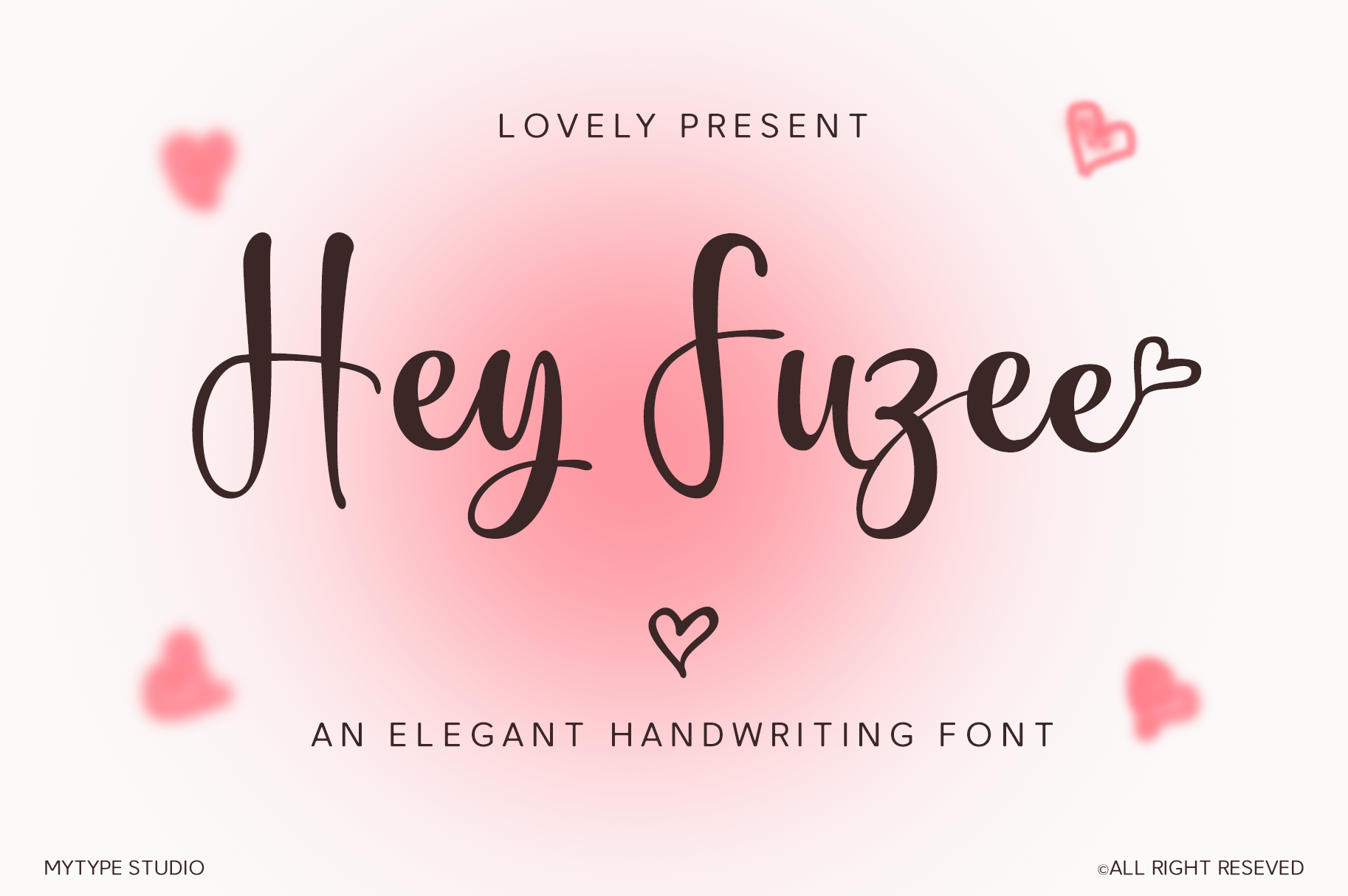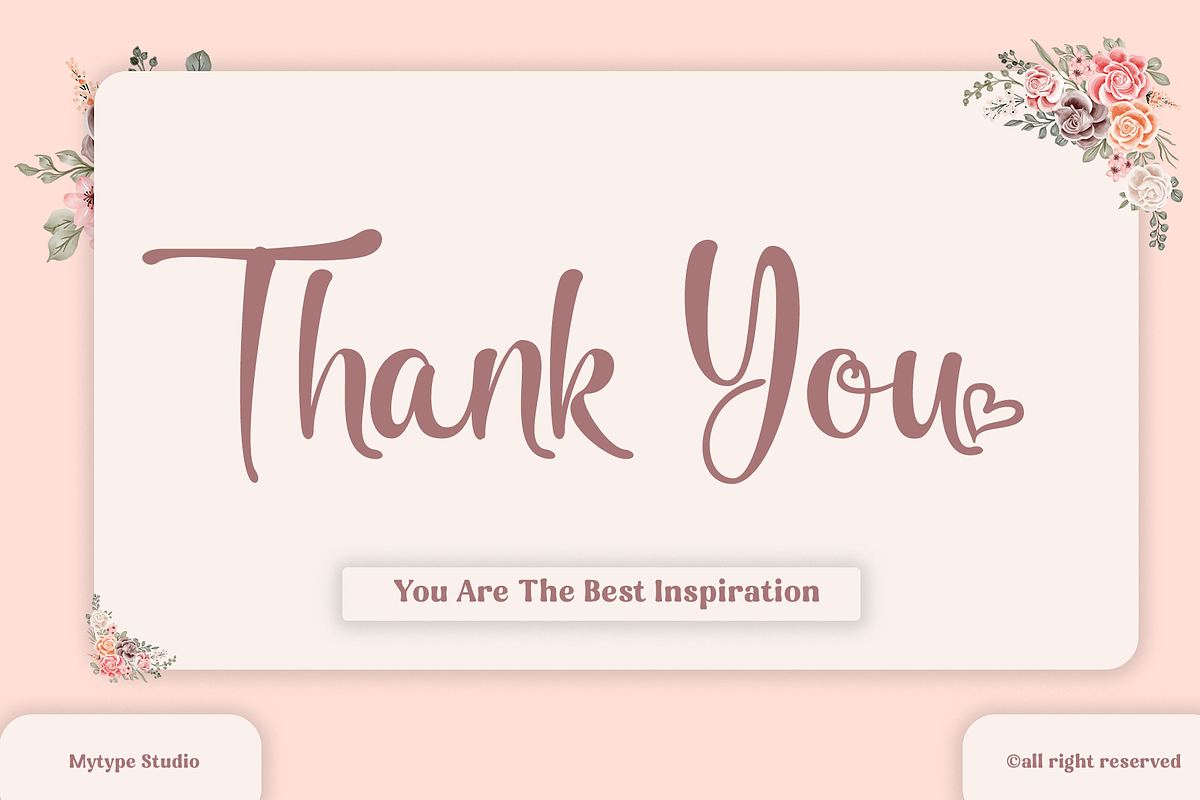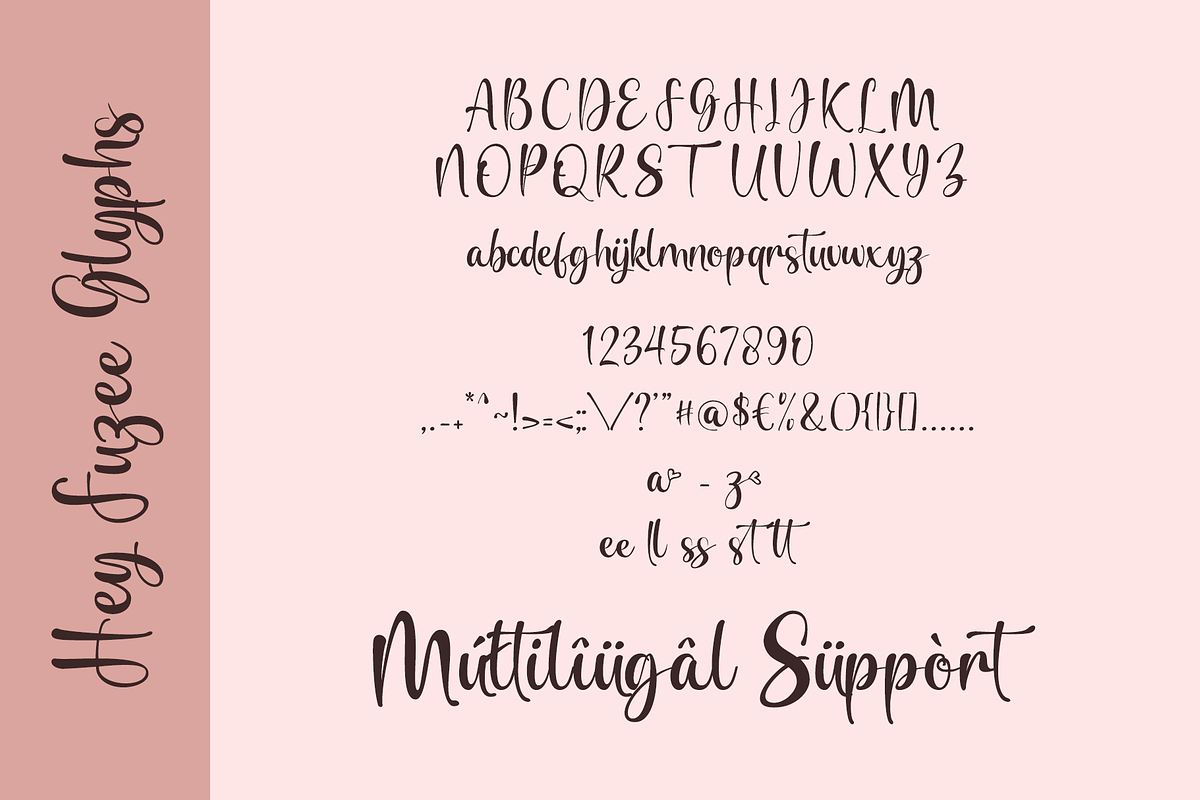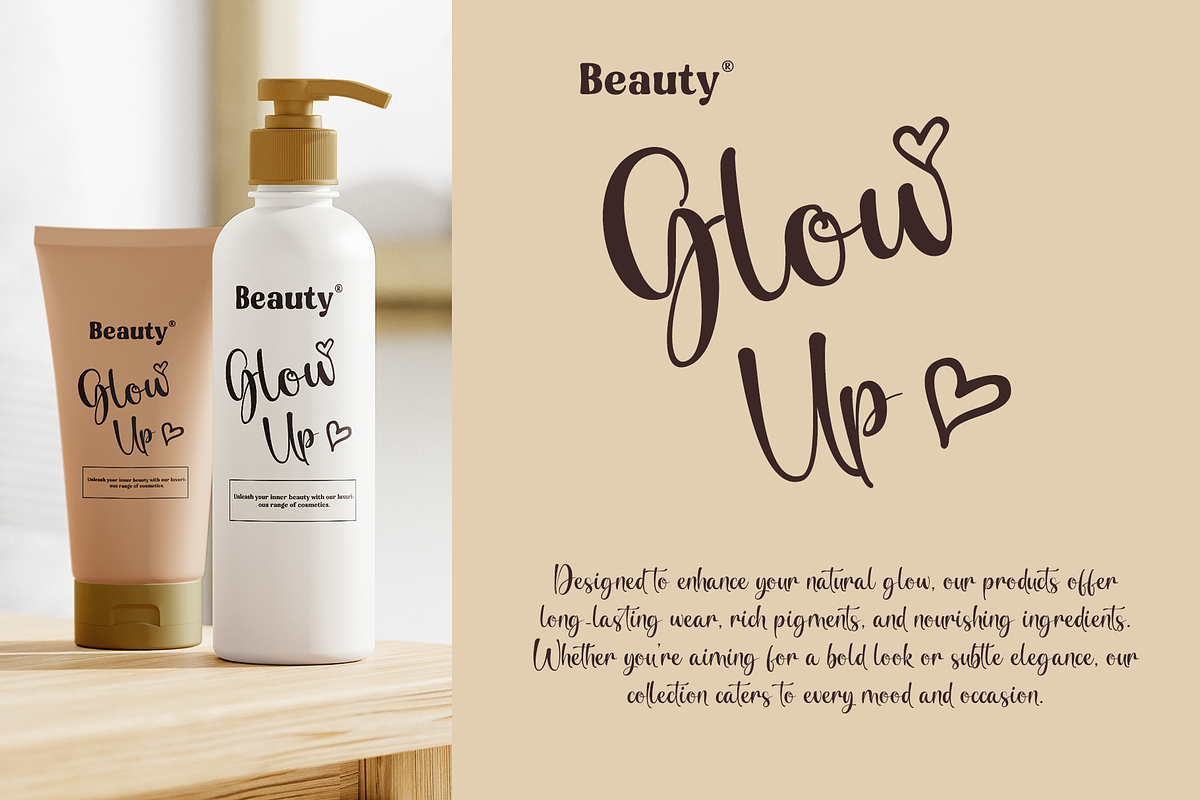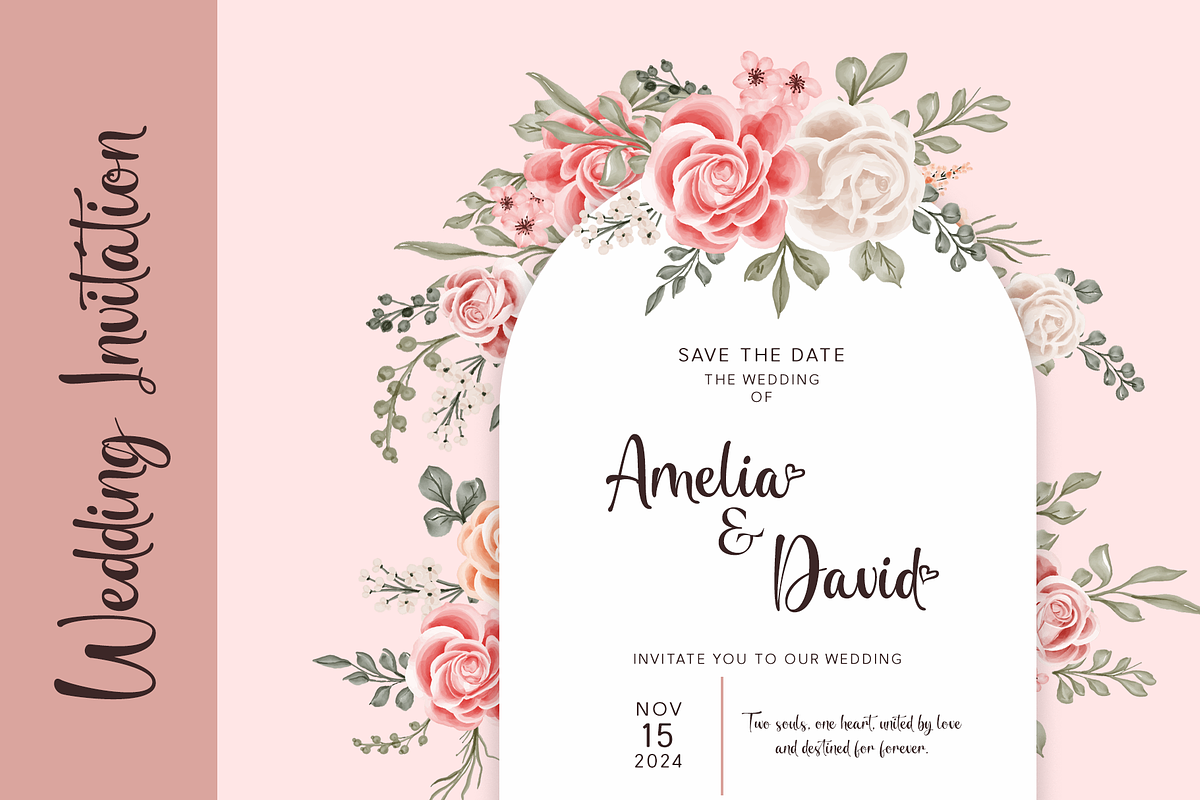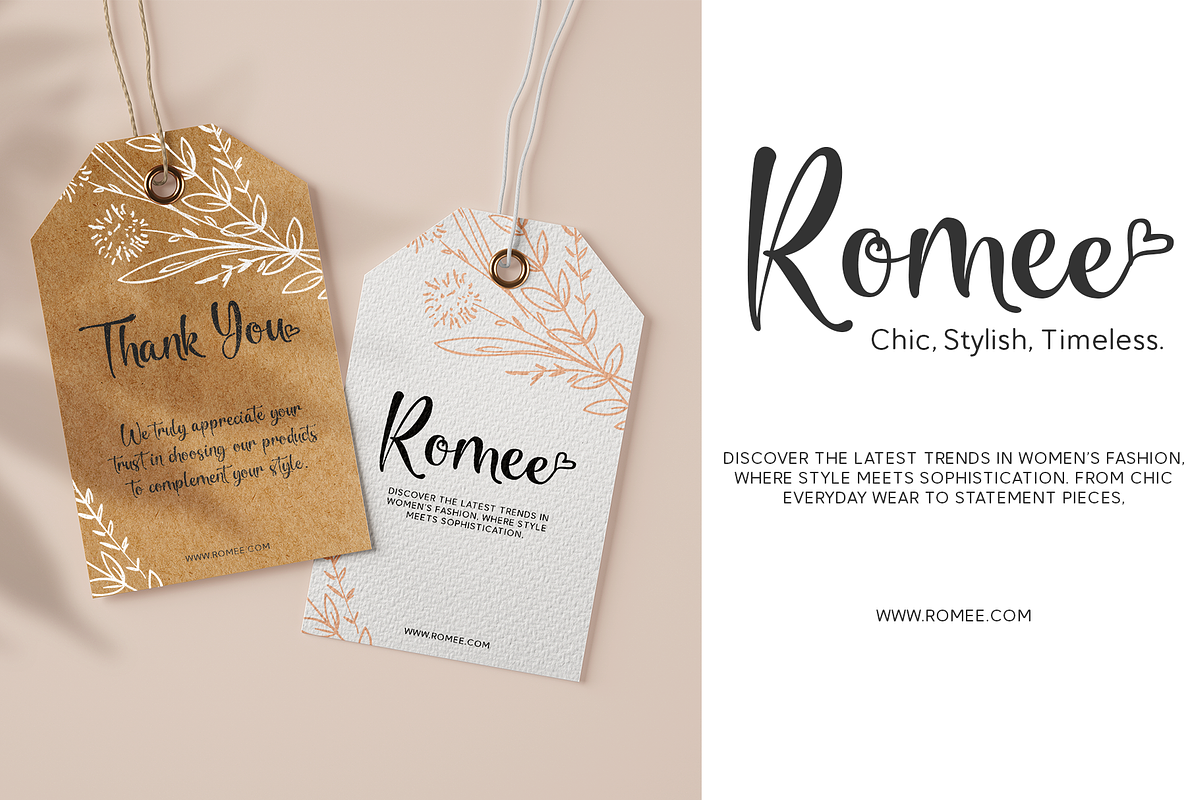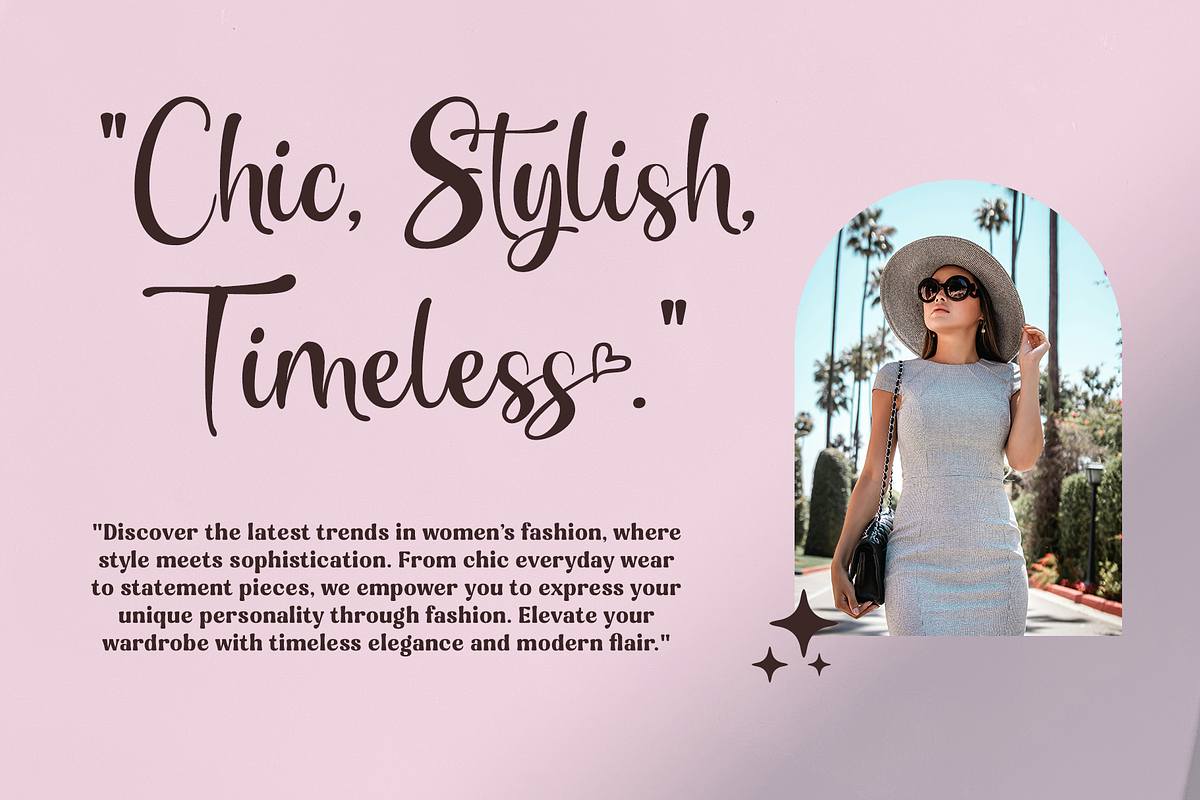
Hey Fuzee - Handwriting Font
Hey Fuzee is an elegant and playful handwritten font that effortlessly combines sophistication with a touch of whimsy. This font is perfect for adding a personal and romantic flair to any project. Whether you're designing wedding invitations, branding materials, or social media graphics, Hey Fuzee’s graceful curves and charming heart accents will make your text stand out. Its versatile style makes it suitable for both formal and casual designs, bringing warmth and personality to your work.